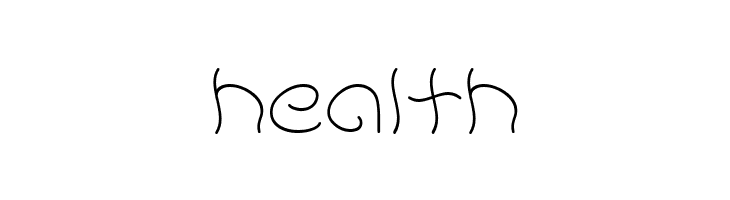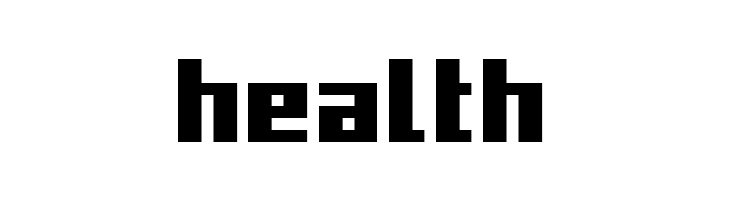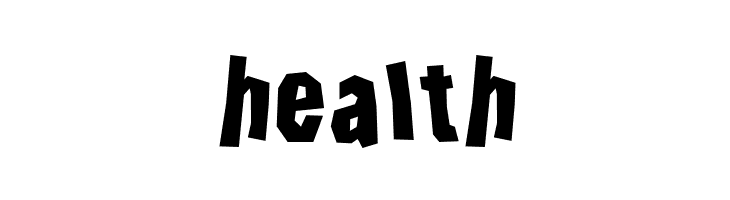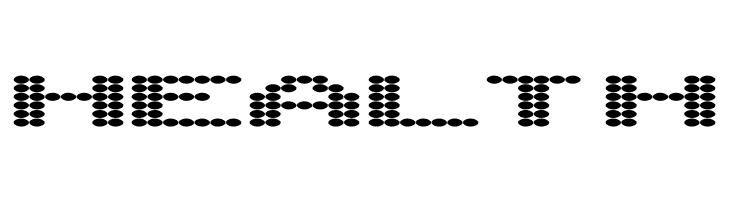
A playful, hand-drawn font with whimsical and irregular characters.
A bold, dynamic font with unique curves and artistic flair.
A playful, artistic font with tall, hand-drawn characters and varying stroke widths.
A bold, hand-drawn style font with expressive, uneven strokes.
A bold, angular font with a dynamic, futuristic style.
A bold, distressed font with a rugged, vintage look.
A bold, hand-drawn font with a graffiti-like, artistic style.
A bold, playful font with a splashy, textured design.
A bold, shark-themed decorative font with a playful and adventurous style.
A bold, playful font with a textured, ocean-inspired design.
A bold, italicized display font with a distressed, textured appearance.
A bold, grunge-style font with a distressed texture and dynamic appearance.
A playful, hand-drawn font with a whimsical, cartoonish style.
A bold, geometric font with a futuristic and modern design.
A bold, playful font with a 3D effect and rounded, irregular characters.
A bold, pixelated font with a retro, 8-bit video game style.
A bold, futuristic font with sharp, angular design elements.